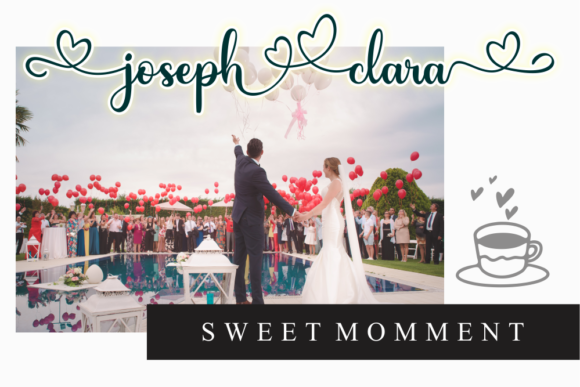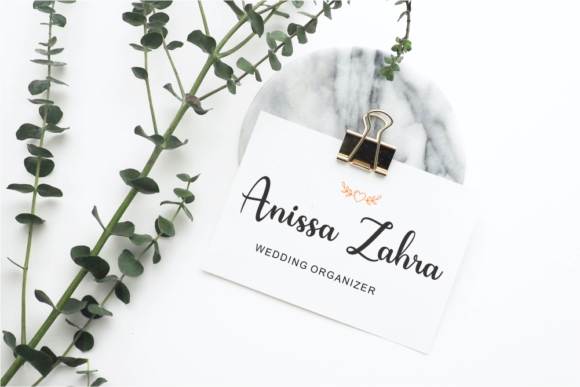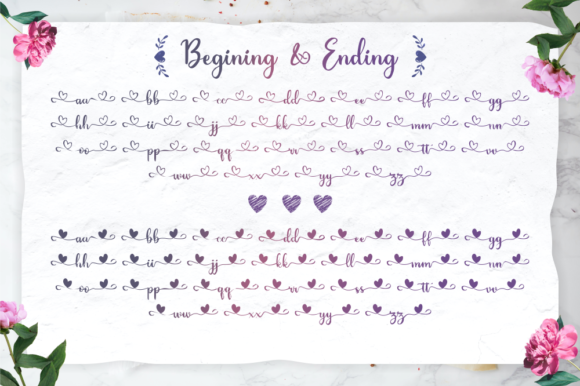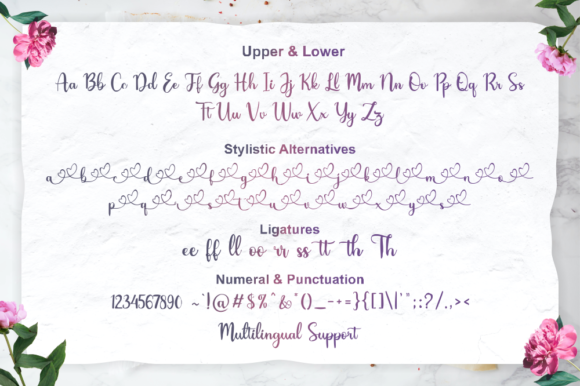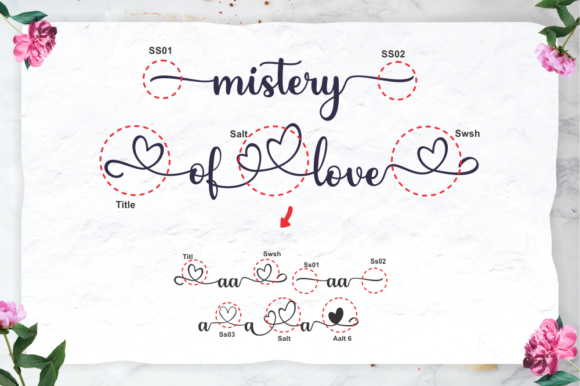
The Font that Stole My Heart: A Deep Dive into Hey Lover Font
I still remember the design project that led me to discover Hey Lover Font. I was working on a wedding invitation for a close friend, and I was struggling to find the perfect font that would capture the romantic and whimsical feel of the occasion. That’s when I stumbled upon Hey Lover Font, and it instantly stole my heart. In this article, I’ll share my experience with this beautiful script font, its features, and how you can use it to elevate your designs.
First Impressions: What I Love About Hey Lover Font
Hey Lover Font is a stunning script font that features cute ligatures and gorgeous swashes. Here are some things that I love about this font:
- ✨ Beautifully crafted letters with a romantic and whimsical feel
- ✅ Elegant swashes that add a touch of sophistication to your designs
- ✨ Cute ligatures that create a sense of continuity and flow
- ✅ Highly versatile and can be used for a variety of design projects
A Few Quirks to Keep in Mind
While Hey Lover Font is an amazing font, there are a few quirks to keep in mind:
- ⚠️ The font may not be suitable for body text due to its script nature and intricate details
- 🤔 Some users may find the font a bit challenging to read at smaller sizes
The Story Behind Hey Lover Font
Hey Lover Font was designed with love and care by a talented type designer who wanted to create a font that would capture the romance and whimsy of the perfect love story. The font’s intricate details and elegant swashes make it perfect for designs that require a touch of sophistication and elegance.
| Font Name | Hey Lover Font |
| What is Hey Lover Font best used for? | Hey Lover Font is best used for designs that require a romantic and whimsical feel, such as wedding invitations, greeting cards, and social media posts. |
| Is Hey Lover Font suitable for body text? | No, Hey Lover Font is not suitable for body text due to its script nature and intricate details. It’s best used for headings and titles. |